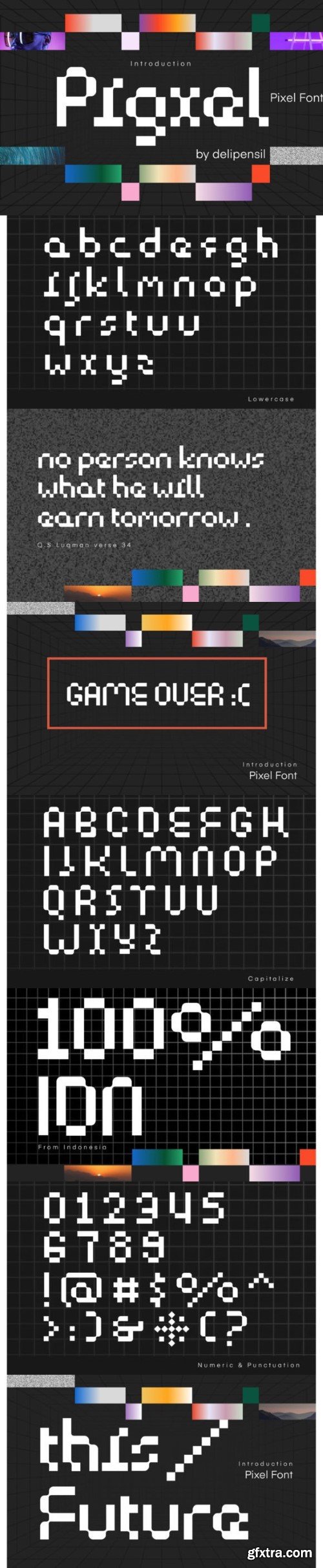
匹格西尔字体
Pigxel is a cool and modern pixel typeface that brings a fresh twist to digital design. With a playful nod to pixels, it adds a contemporary touch to your projects. Perfect for gaming, tech, or anything that needs a trendy pixelated vibe, Pigxel is your go-to choice for a sleek and modern typographic experience. Embrace the pixel revolution with Pigxel for a fun and stylish look in your digital creations.